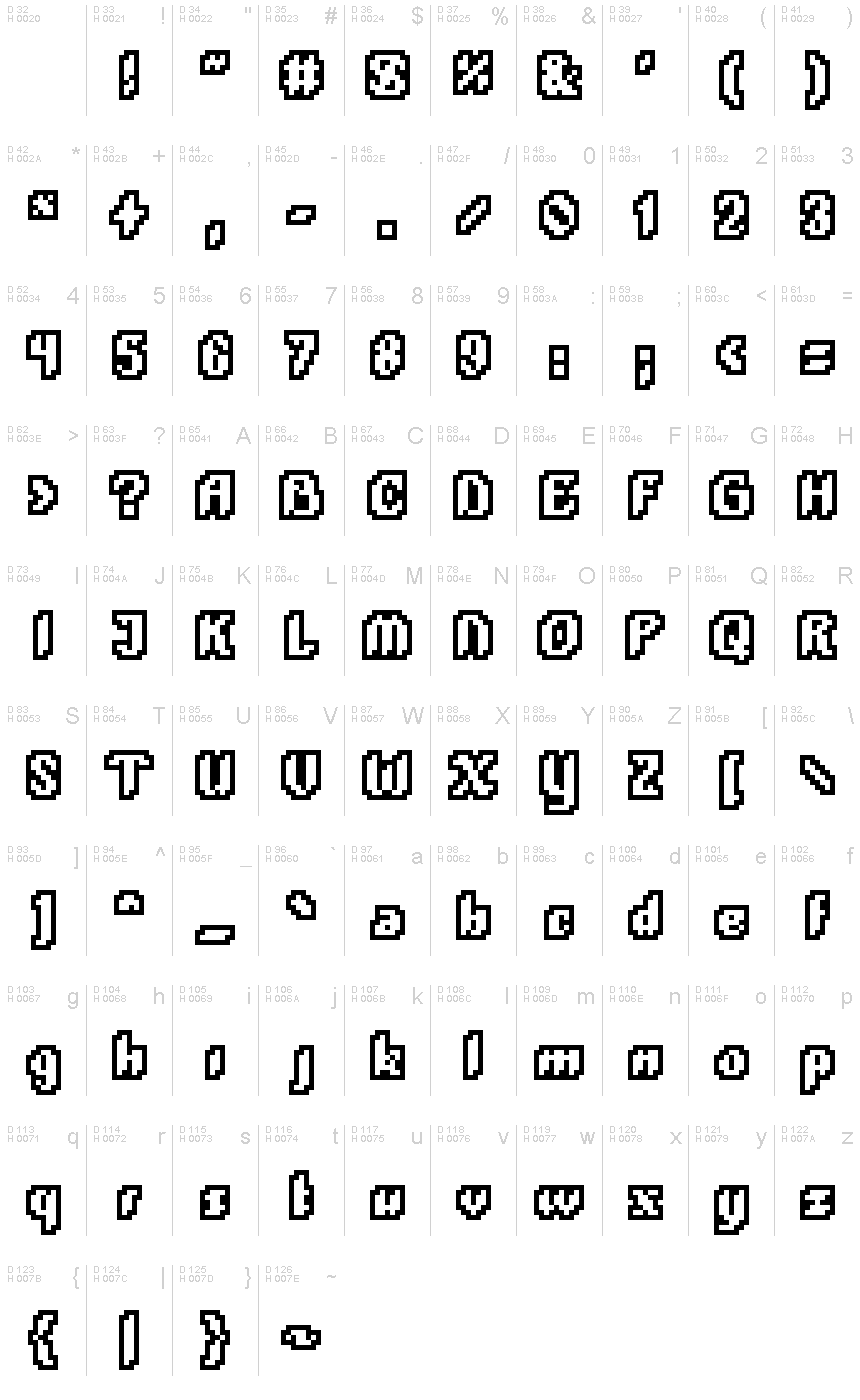
PlopDumpOutline
"Plop Dump" is a bold, pixel-art inspired font with a distinctively quirky and playful aesthetic. Its sharp, angular letterforms and pronounced outline create a visually striking and attention-grabbing impression. The pixelated texture lends a retro-digital feel, while the bold weight and distinctive style make this font well-suited for a range of applications, from eye-catching headlines and logos to abstract pattern designs. Its unique character and unconventional charm make "Plop Dump" a versatile choice for designers seeking to infuse their work with a touch of whimsical, unconventional flair.
This font could excel in contexts that call for a bold, experimental typographic approach, such as branding for tech startups, indie music albums, or experimental art projects. Its distinctive appearance and strong personality make it an excellent option for capturing attention and conveying a sense of irreverence and playfulness.
A font specifically made for use in Adventure Game Studios. Best viewed at 10 pixel size. Alias, outline, and shadow fonts are to be layered over the base font.